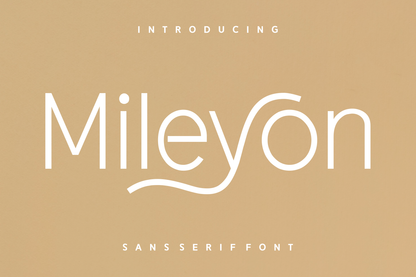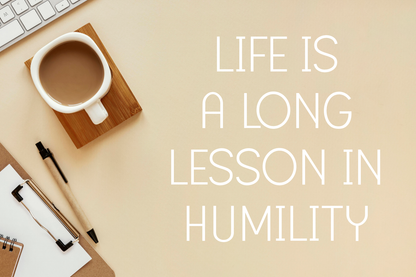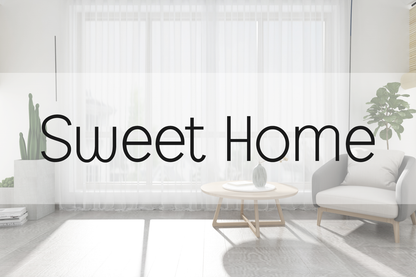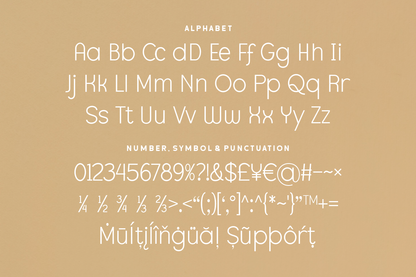
Mileyon is an elegant, modern sans-serif with a signature twist—literally. The flowing curve in the “y” adds a graceful and stylish flourish, making this font ideal for beauty branding, high-end fashion, and sophisticated editorial designs.